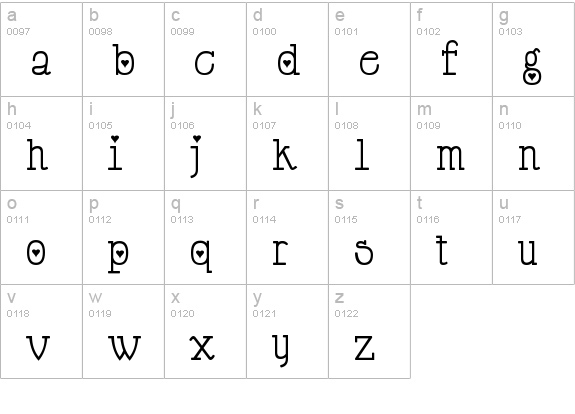
Cupid de Locke Font Details
Introducing Cupid de Locke, a captivating and enchanting font that will make hearts skip a beat. This font, with its delicate curves and graceful strokes, is inspired by the timeless beauty of Cupid, the Roman god of love. Cupid de Locke embodies the essence of romance, effortlessly capturing the emotions that come with matters of the heart. With its unique and intricate design, Cupid de Locke is sure to make any text stand out. Whether you're designing wedding invitations, love letters, or heartfelt quotes, this font will add a touch of elegance and charm to your creations. Its versatility allows it to be used in a variety of projects, from branding and packaging to social media graphics and more. And the best part? Cupid de Locke is available to download for free at FontsMarket.com. Yes, you heard that right – this stunning font can be yours without spending a penny. Now you can bring a touch of romance to your designs without breaking the bank. So, why wait? Download Cupid de Locke today and let your creativity soar. Whether you're a professional designer or a passionate DIY enthusiast, this font will help you express your love and creativity in the most beautiful way. Let Cupid de Locke be your muse as you spread love and joy through your designs.